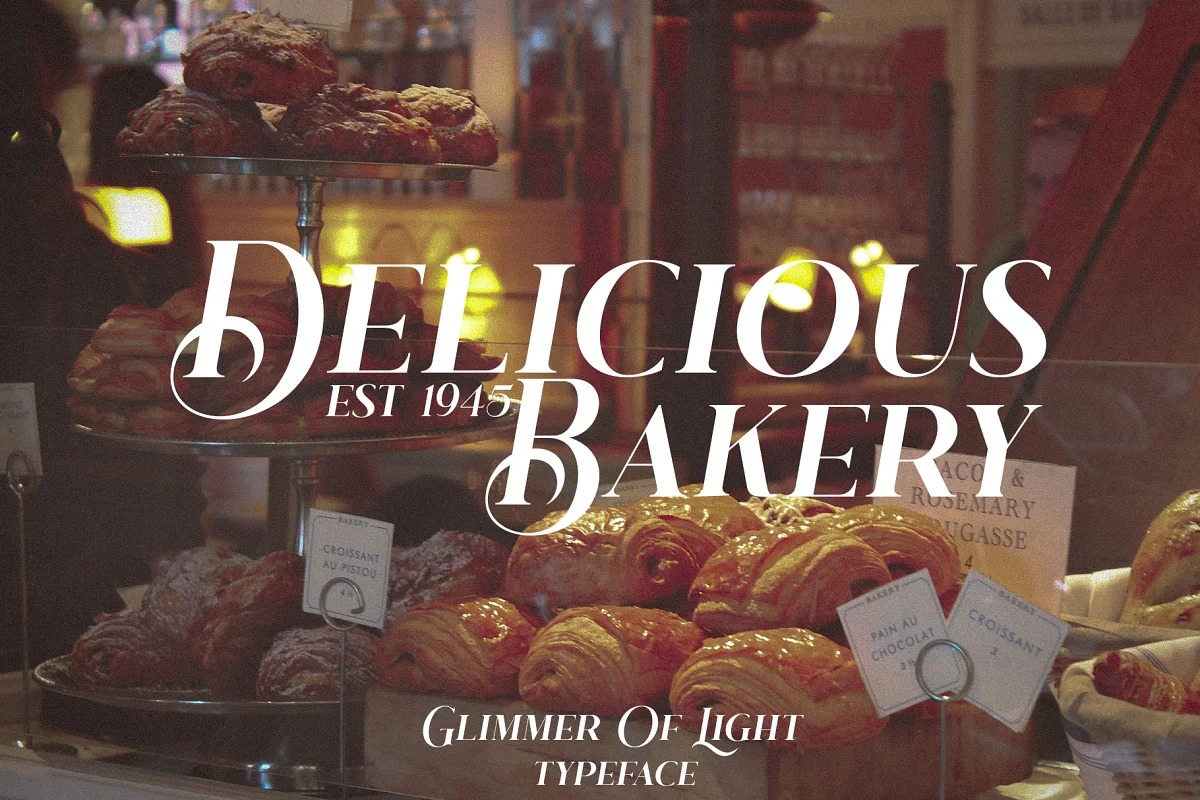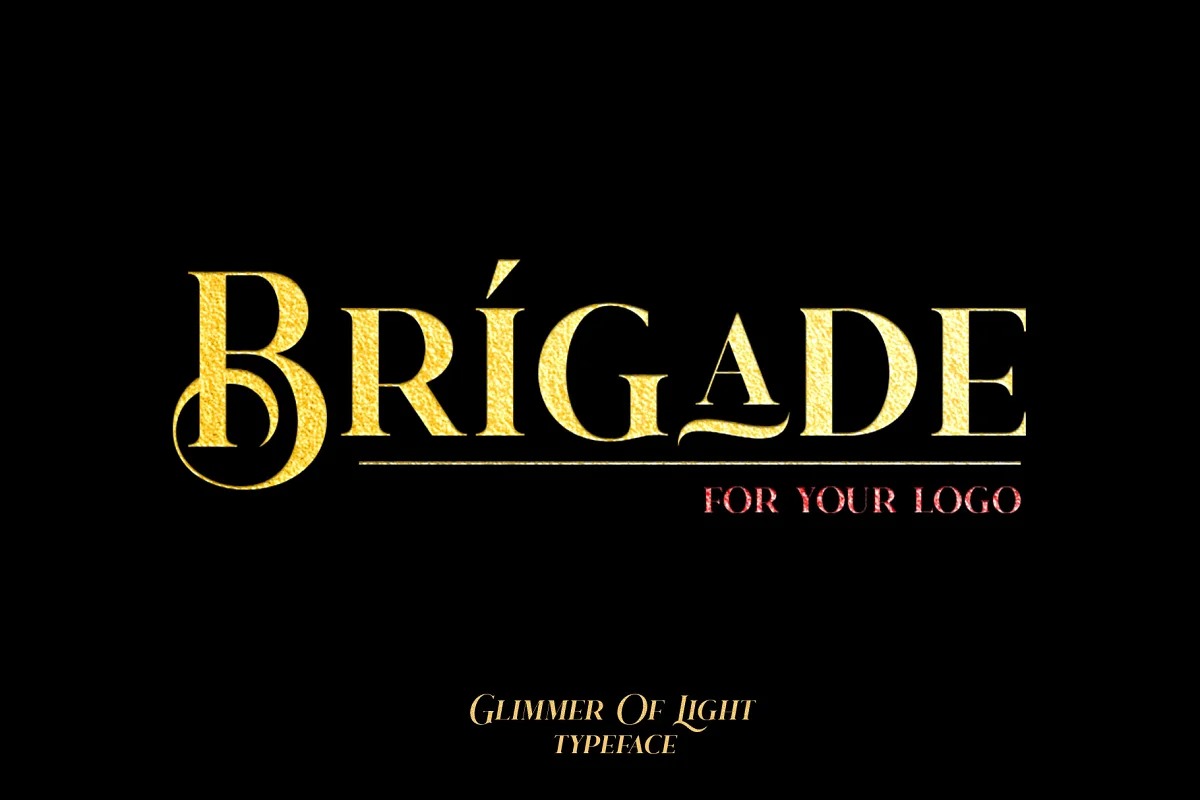
Glimmer Of Light Font
Glimmer Of Light Serif Font
Proudly present new typeface, created by INKSUN™, A serif modern and classic typeface that has own unique style & modern look. It will be very suitable for those of you who like vintage-style designs, coupled with some stylish alternate glyphs.